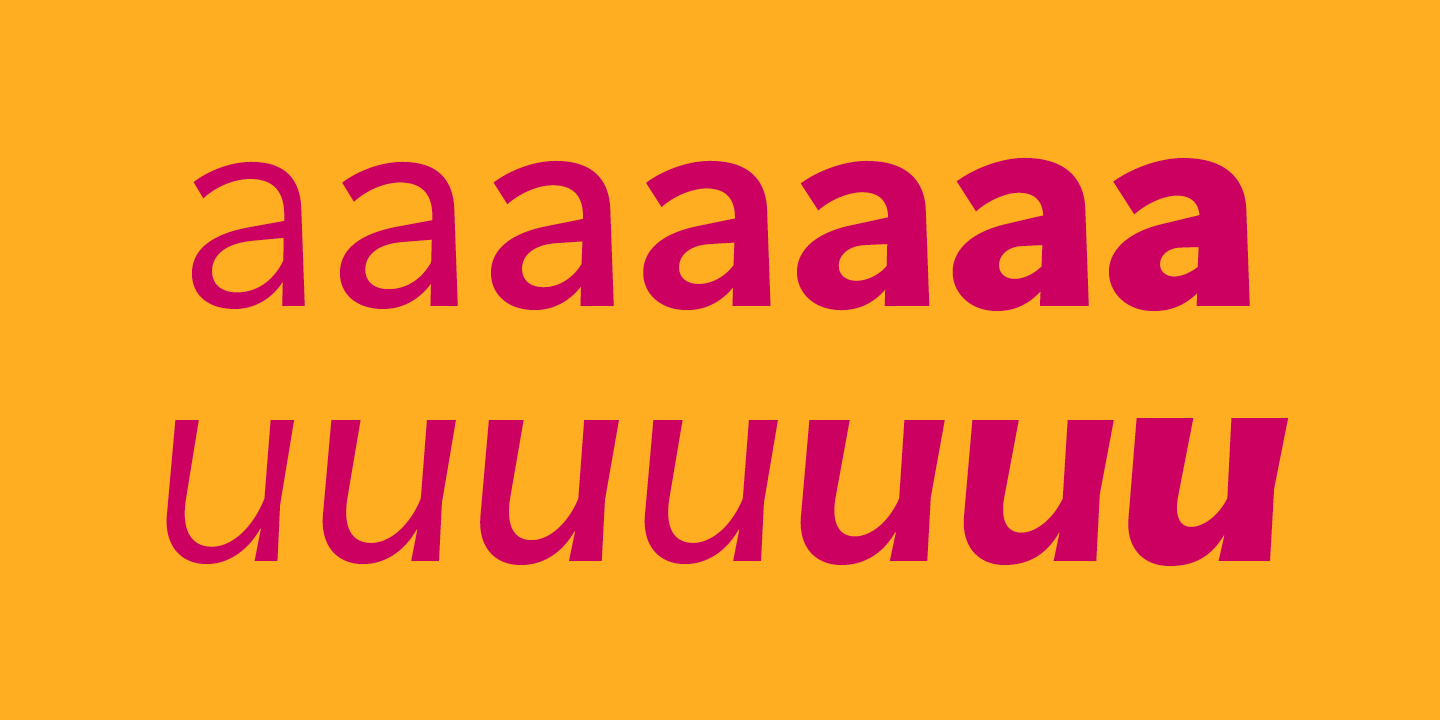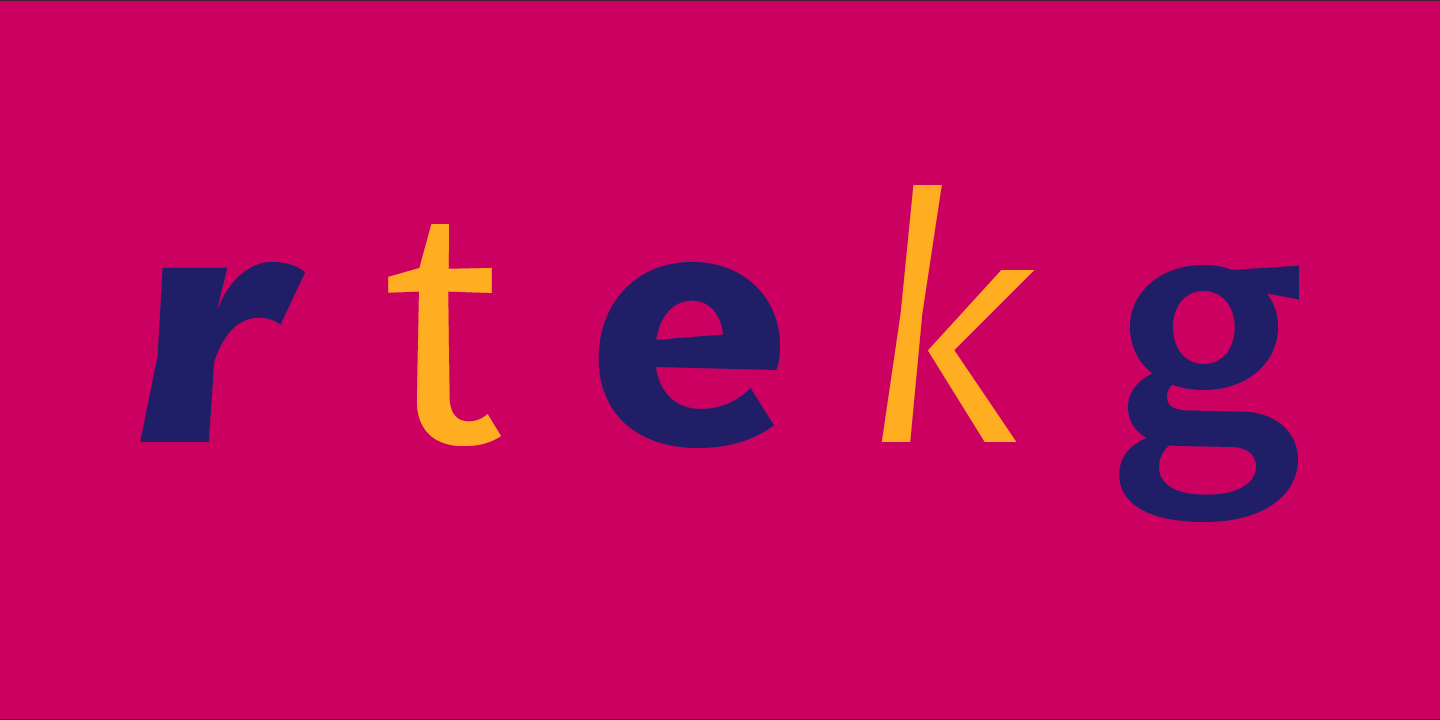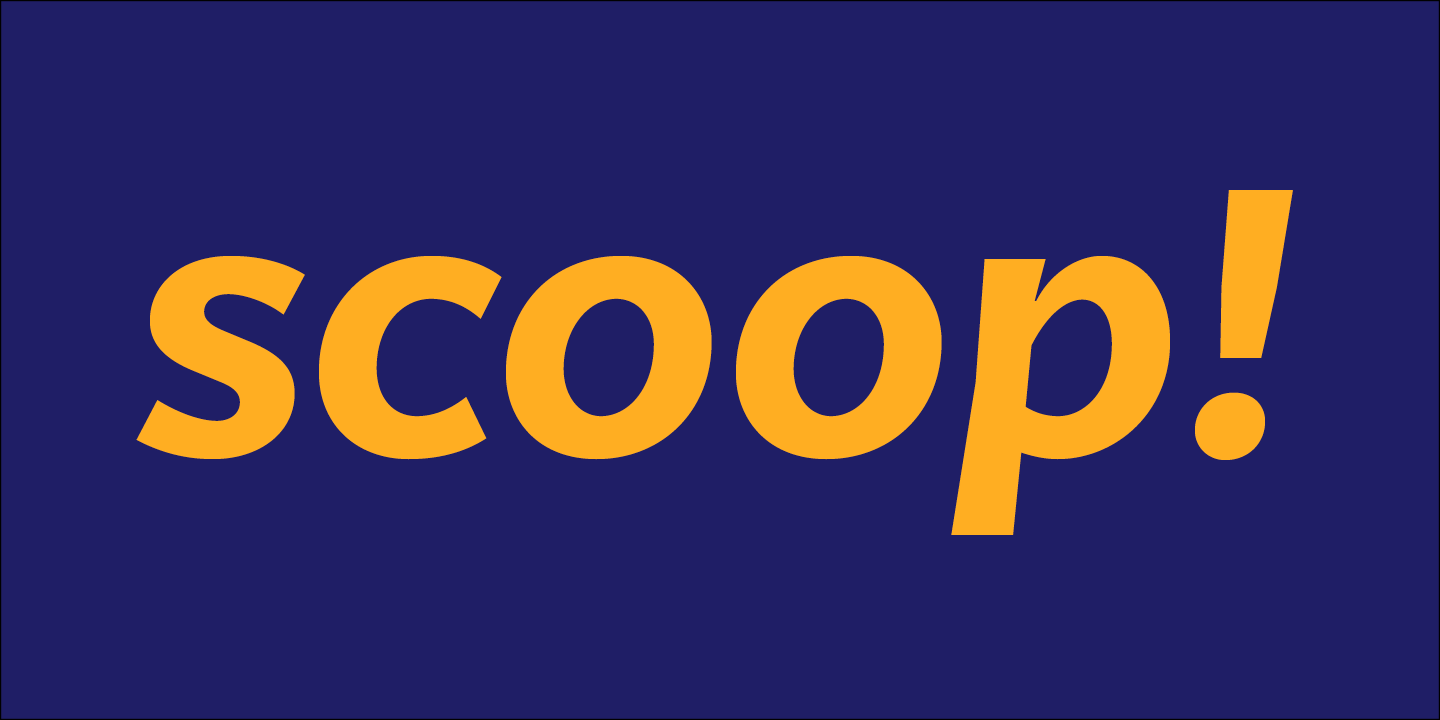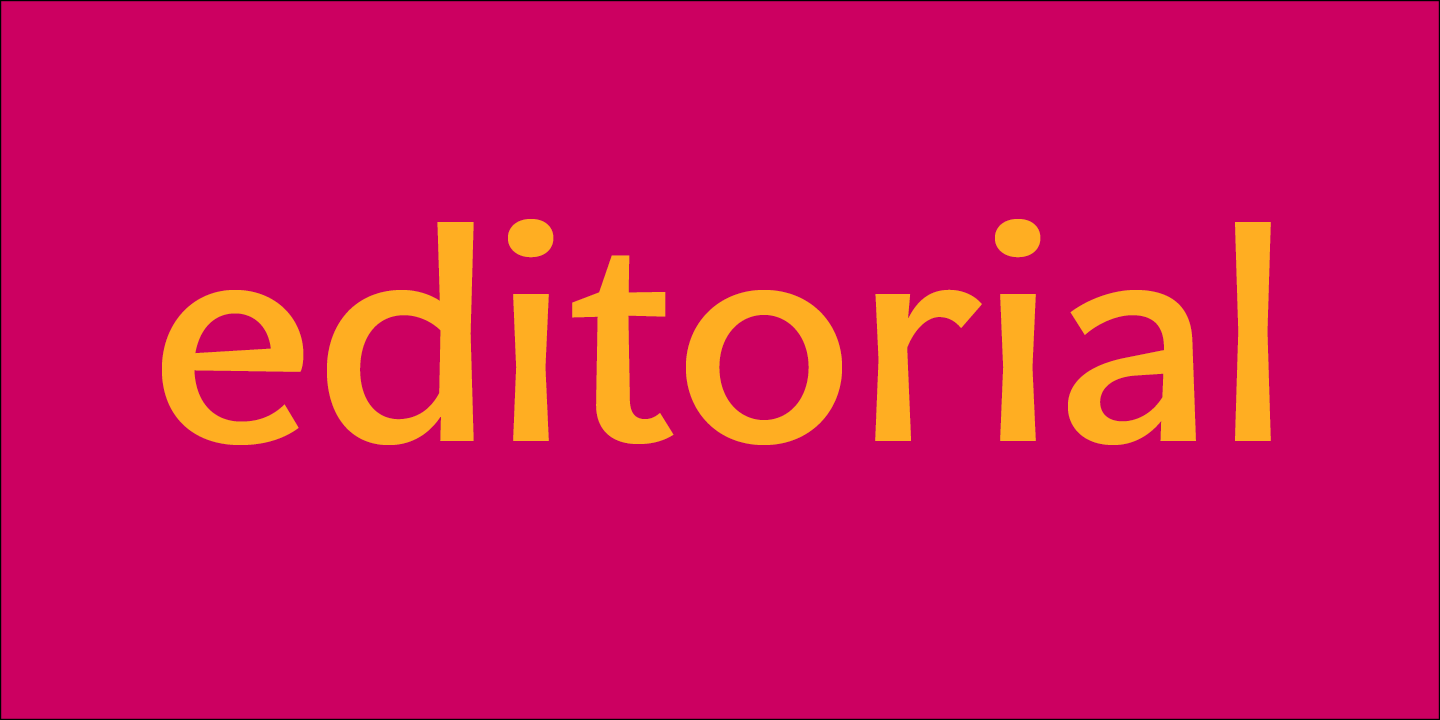
LFT Arnoldo began as an all-caps book cover typeface created during the rebranding of Oscar Mondadori, the most important Italian publisher, with over 4,500 titles from ancient classics to contemporary works, and spanning academic essays to children’s and self-help books. For such a diverse catalogue, it was necessary to find a coherent and flexible paradigm which took into account genre and readership differences and ensured harmony among its works. The main idea was to create a typeface suitable for the branding element and which could be used for each title of the immense catalogue.
So what makes LFT Arnoldo a companion to the centuries? Starting with the design of the capital letters, it is first a rational typeface with contemporary proportions. But rationality without style wasn’t enough, so its glyphic nature carries an engraved feeling to resemble letters when chisel is put to stone. Once these two traits were settled, the entire character set was developed as a flared humanist sans in order to complete the family and extend its usage, from titles and display settings to texts.
LFT Arnoldo sets titles with dignified authority to appear digitally carved and more arresting than the usual sans or flared sans designs of the past. It is calm and dependable in paragraph use and a captivating vehicle of aesthetic expression in title and display use. At once rugged and syncopated, the slight hourglass stems and incised details make each letter come alive and engrave each paragraph upon our emotions.
LFT Arnoldo intends to be a resilient type family for centuries to come. Its seven roman weights have italic counterparts and the entire family is loaded with OpenType features: alternates, ligatures, small caps, oldstyle and lining numerals, and science and math capabilities. In the battle of charisma, where the right voice must project intelligence, influence, and refinement, LFT Arnoldo is the victor.